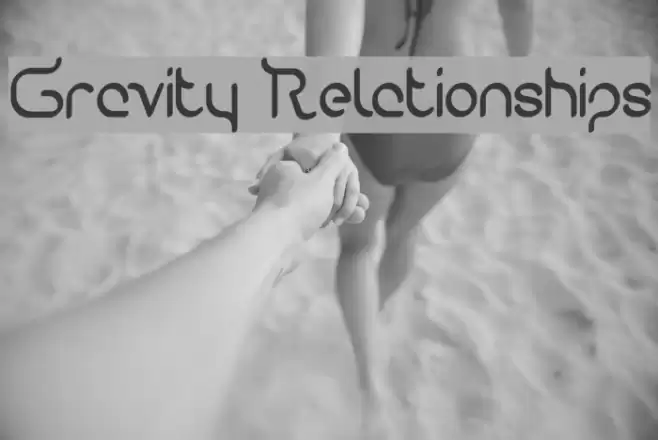
Gravity Relationships Font
Gravity Relationships Description
This font features a unique and futuristic design with a geometric and rounded aesthetic. The characters are composed of smooth curves and sharp angles, creating a dynamic and modern appearance. The uppercase letters have a distinctive style with extended strokes and open counters, while the lowercase letters maintain a consistent flow with a slightly playful touch. The numerals and special characters follow the same design principles, ensuring a cohesive look across all glyphs. This font is suitable for projects that require a contemporary and innovative feel, making it ideal for tech-related branding, modern advertising, and creative digital content.
A futuristic and geometric font with smooth curves and sharp angles, perfect for modern designs from Uncategorized fonts.